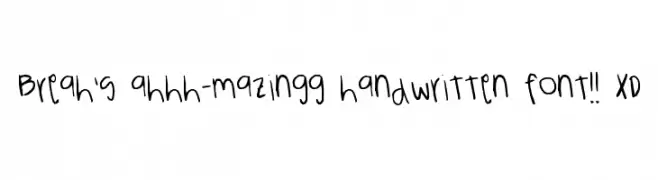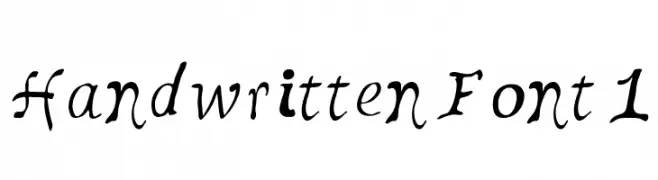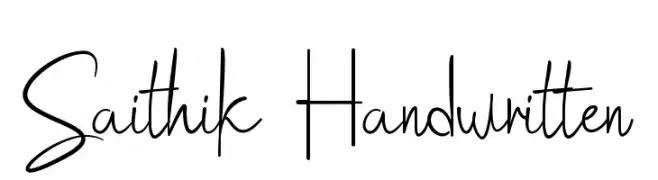
Casual handwritten font with rounded, playful strokes.
A whimsical, handwritten script font with playful loops and bold lowercase forms.
Casual handwritten font with playful, irregular shapes.
Casual handwritten sans-serif with rounded, playful forms.
Casual handwritten font with rounded, playful forms.
Tall, narrow, handwritten sans-serif with playful character.
Casual, handwritten sans-serif with rounded forms.
Loose, informal handwritten font with playful character shapes.
Playful, rounded handwritten font with bold, informal shapes.
Tall, narrow handwritten script with a casual, energetic feel.
Casual handwritten script with smooth, rounded strokes and a friendly appearance.
Elegant, casual handwritten script with thin, flowing lines.
Casual handwritten script with rounded, playful strokes.
A tall, narrow, handwritten sans-serif font with a casual feel.
Casual handwritten sans-serif with playful, rounded forms.
Casual handwritten sans-serif with playful, organic strokes.
Playful, handwritten sans-serif with tall, narrow letters.
Bold, playful handwritten style with rounded, informal strokes.
Casual handwritten font with playful, uneven strokes.
Casual handwritten script with smooth, rounded strokes.
Casual handwritten script with monoline strokes and a natural flow.
Casual handwritten font with playful, irregular shapes.
A casual, handwritten script with tall, narrow, and rounded letterforms.
Casual handwritten script with connected, flowing strokes.
A lively handwritten script with a casual, cursive style.
Elegant, monoline handwritten script with flowing connections.
Casual handwritten font with a playful, friendly vibe.
Casual handwritten sans-serif with playful, uneven strokes.
A modern, handwritten script with tall, narrow letters and a casual feel.
Casual handwritten sans-serif with tall, narrow, playful characters.
Loose, handwritten script with a natural, informal feel.
A loose, handwritten script with a casual and informal feel.
Elegant, thin handwritten script with tall, flowing forms.
Casual, rounded sans-serif with a handwritten style.